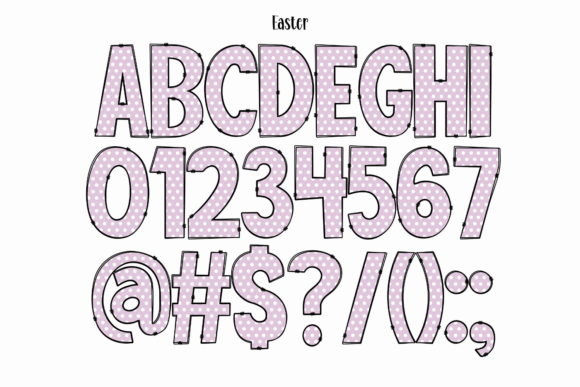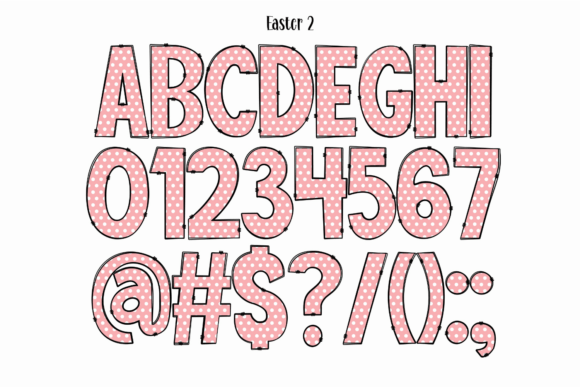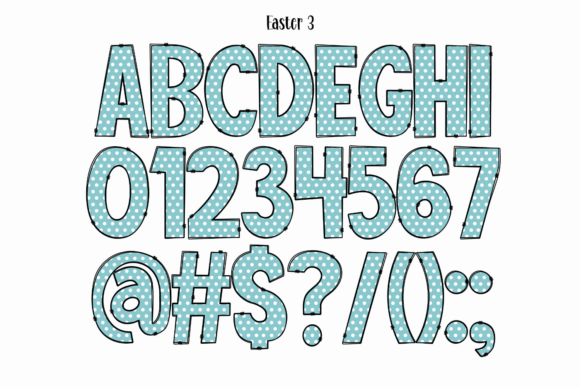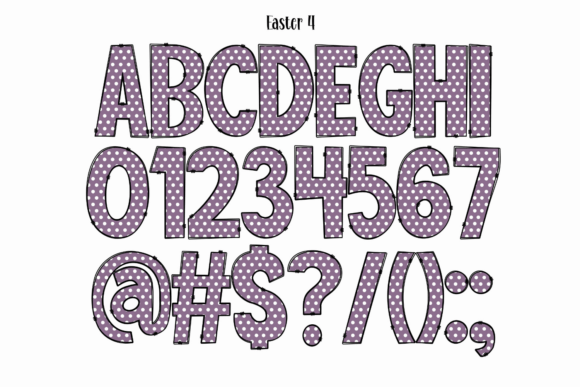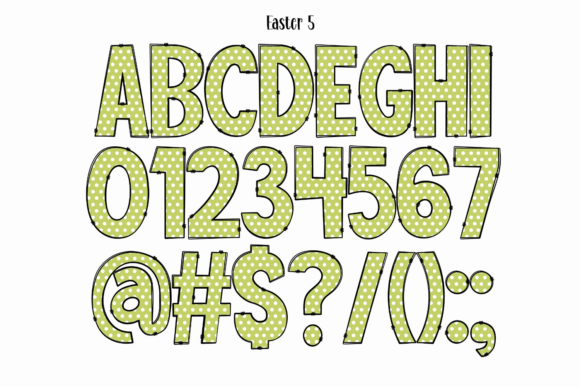
Unleash the Vibrant Energy of Easter Font: A Comprehensive Guide
Are you ready to infuse your designs with a burst of colorful energy and whimsy? Look no further than the enchanting Easter font! This mesmerizing typeface is specifically crafted to captivate and inspire, making it the perfect partner for creating striking headlines, unforgettable logos, and irresistible social media graphics. Whether your design ethos is bold and vigorous or tender and exquisite, Easter font is the ideal choice to illuminate your work.
A Palette Bursting with Sparkling Shades
One of the most exciting features of Easter font is its vibrant color palette. With a range of sparkling shades at your disposal, you can add a splash of whimsy to your initiatives and drench your designs in the chromatic charm of this unique and vivacious font. From bold and bright hues to softer, pastel tones, Easter font offers the perfect combination of colors to bring your designs to life.
In conclusion, Easter font is a vibrant and versatile typeface that’s perfect for designers and crafters who want to add a touch of whimsy and playfulness to their designs. With its sparkling color palette and compatibility with a range of design programs, Easter font is the ideal choice for anyone looking to unleash their creativity and bring their designs to life.